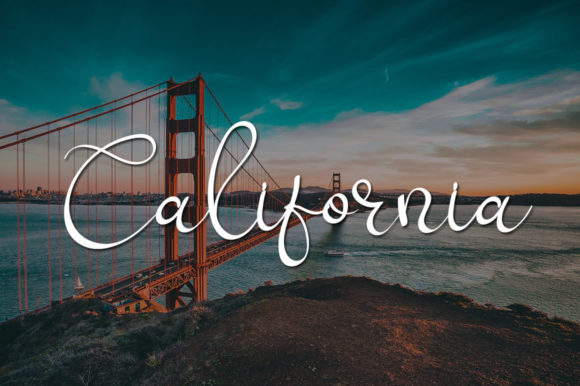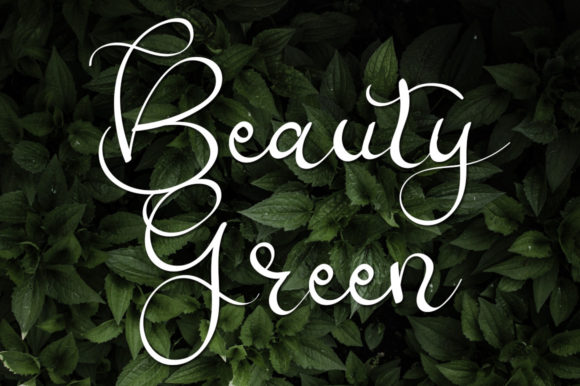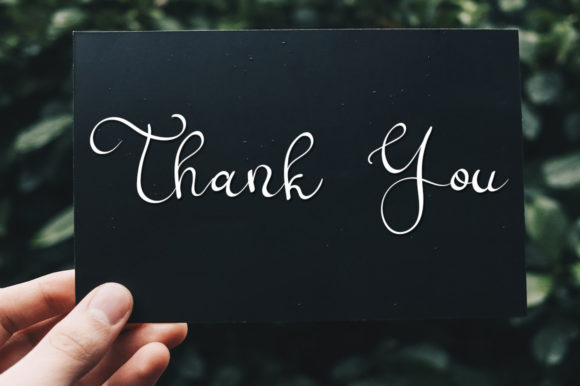
Introduction to New Photography Font
Remember the moment when you stumbled upon a breathtaking photo that captured the essence of a beautiful sunset? The vibrant colors, the soft textures, and the serene atmosphere all came together to transport you to a world of serenity. That’s the kind of magic that the New Photography Font can bring to your creative projects.
As a designer, you understand the importance of a high-quality font in elevating your designs and making them stand out from the crowd. The New Photography Font is a beautiful and elegant addition to your design resource library, perfect for both formal and informal projects. Its clean and fresh design will add a touch of joy to your designs, making them even more engaging and memorable.
With its PUA encoded features, you can easily access all the amazing glyphs and ligatures, making it a valuable asset for your creative endeavors. Whether you’re working on a free download or a paid project, the New Photography Font is sure to impress with its transparent background and high-quality design.
Key Features of New Photography Font
- High-quality, unique font design for creative projects, ideal for photography and design enthusiasts.
- Transparent background, allowing for easy layering and compositing in design projects.
- Unique characteristics, including intricate details and subtle textures, adding an extra layer of visual interest to creative projects.
- Perfect for use in photography, graphic design, and digital art projects, where a high-quality, unique font is essential.
Honest Review: New Photography Font
I recently stumbled upon the New Photography Font, and I must say it’s been a great addition to my design resource library. As a designer, I’m always on the lookout for high-quality fonts that can elevate my creative projects.
The font has a clean and modern aesthetic that’s perfect for photography-related designs. It’s available for free download, which is a major plus in my book.
- High-quality design that’s perfect for photography-related projects
- Transparent background, allowing for easy integration into designs
- The font may not be suitable for text-heavy designs, as it’s primarily designed for headings and titles
- The font family is relatively small, which may limit its versatility
Overall, I’m impressed with the New Photography Font. It’s a great design resource that can add a touch of sophistication to your creative projects. While it may have some limitations, it’s definitely worth checking out, especially if you’re working on a photography-related project.
Designing with New Photography Font
The New Photography Font is ideal for a variety of creative projects, including:
- Photography websites and portfolios
- Graphic design projects
- Branding and identity design